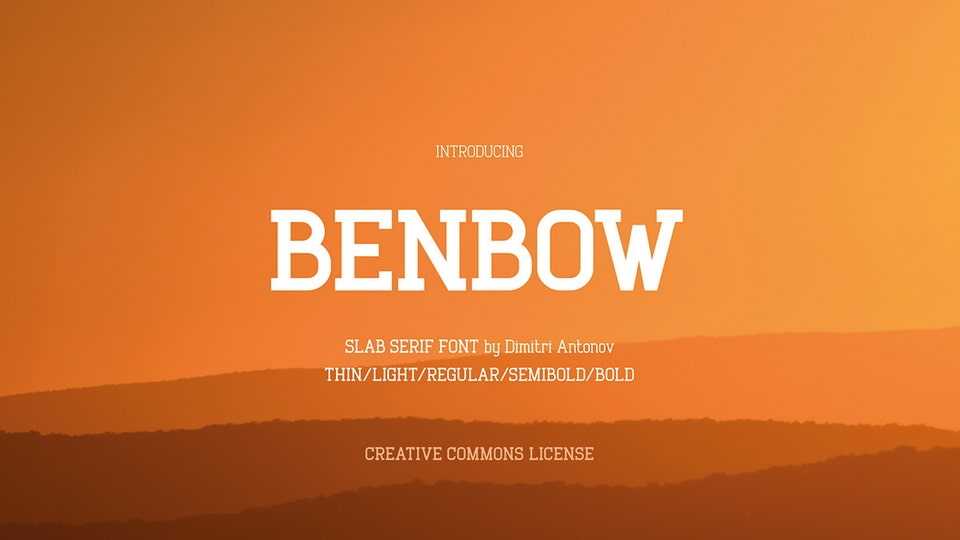
Download Benbow font, a contemporary slab serif typeface that combines bold structure with refined details and solid, rectangular serifs lend a confident and grounded look.
Designer: Dimitri Antonov